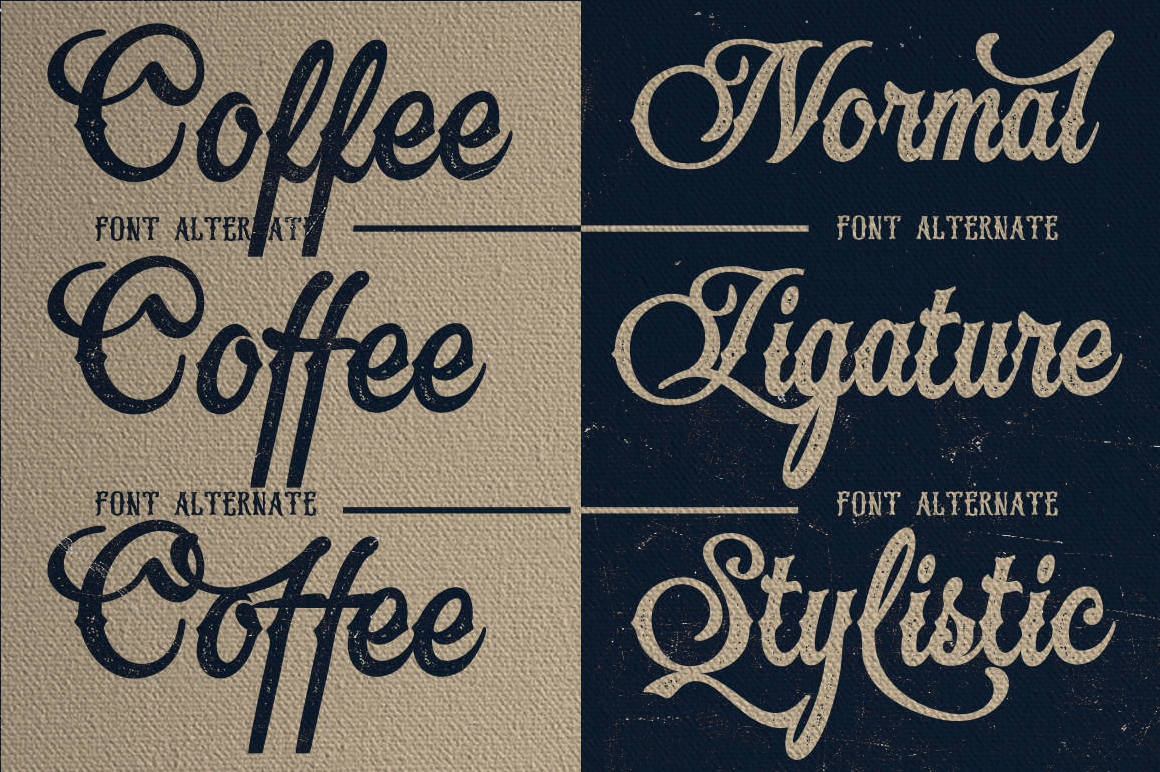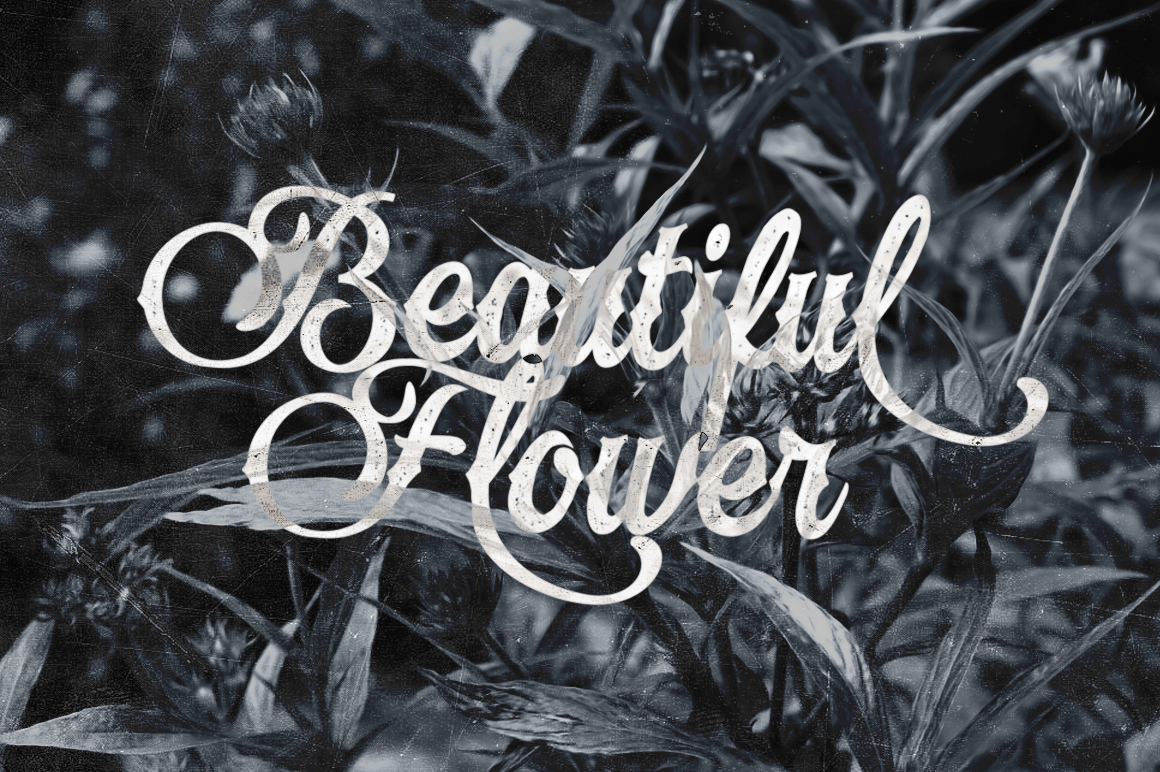
Introduction to Laventy Script Font Font
Fonts play a crucial role in design, and the Laventy Script Font font is a typeface that brings both character and versatility to any project. Whether you’re working on a branding project, a website, or a print design, the Laventy Script Font font offers a unique style that can elevate your work.
Laventy Script is a stunning script font with a blackletter file.
Key Features of Laventy Script Font Font
Why Choose Laventy Script Font Font?
The Laventy Script Font font is more than just a typeface – it’s a design tool that helps you communicate your message with style and clarity. Its unique character set and versatile design make it suitable for a wide range of applications, from elegant invitations to bold headlines.
With its carefully crafted letterforms and balanced proportions, the Laventy Script Font font ensures readability and visual appeal across all mediums.
What makes Laventy Script Font font special?
The Laventy Script Font font stands out with its unique design, exceptional readability, and versatility across various design applications.